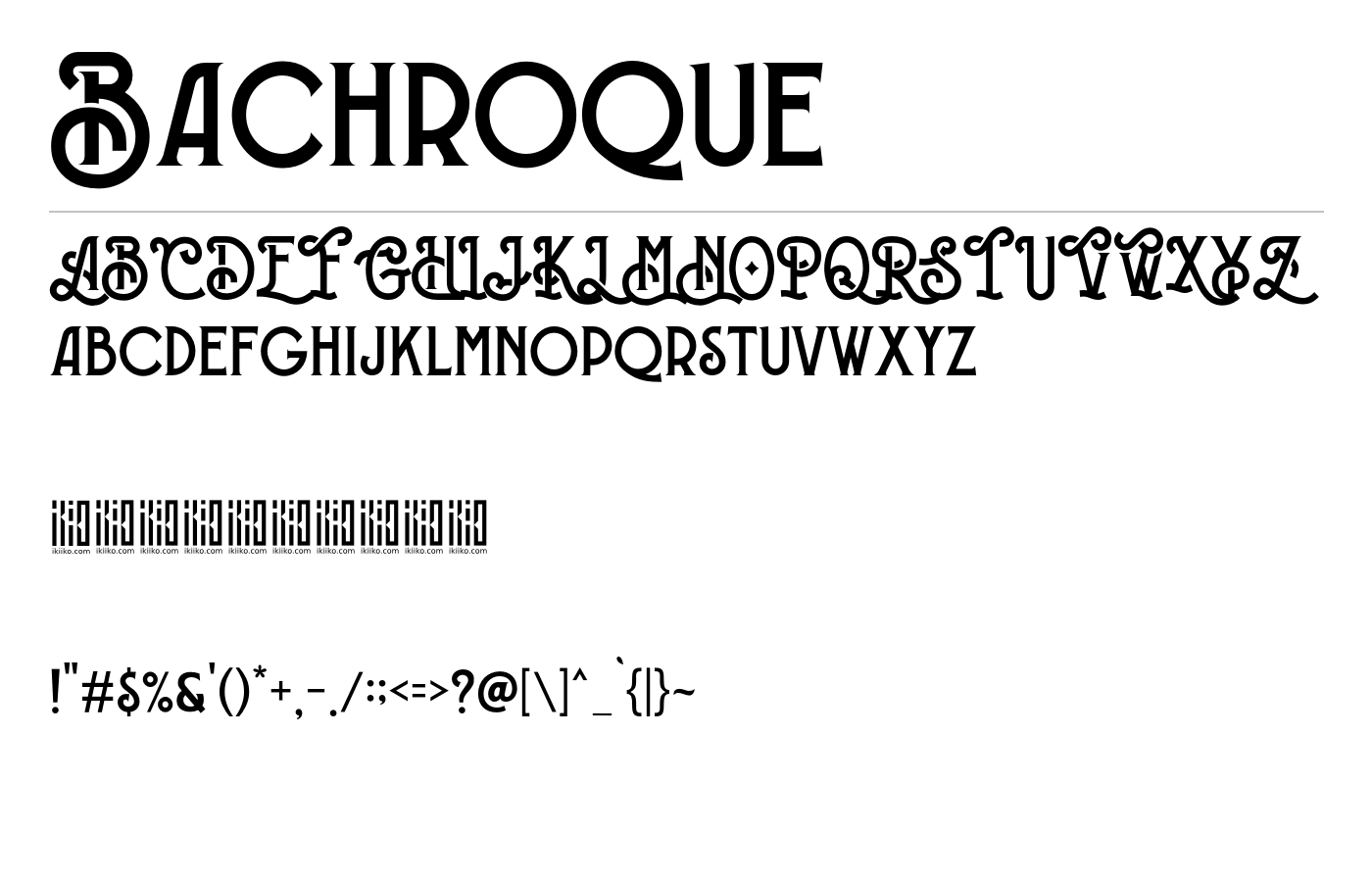
Bachroque is a distinctive serif font featuring a unique blend of vintage and ornamental styles with moderate contrast and elaborate decorative swirls on certain characters. Its tall, narrow letterforms with high x-height and intricate details give it an elegant, artistic personality, making it ideal for striking headlines, logos, or branding that seeks a sophisticated yet playful vibe. This font works beautifully in creative projects where a touch of historical flair and visual interest is desired.
Bachroque Font
About Bachroque Font